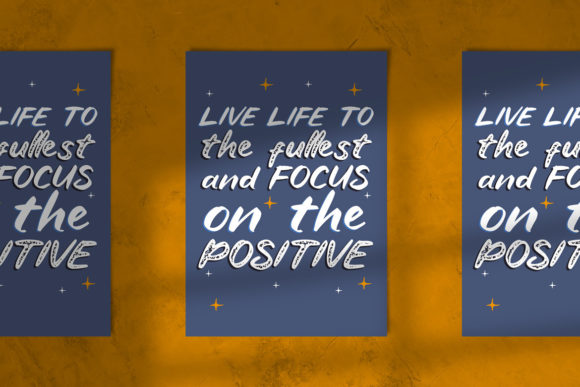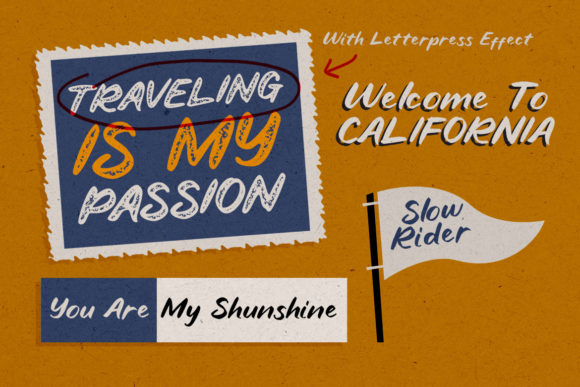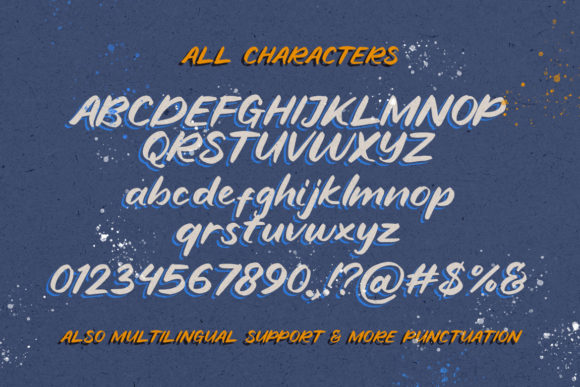
Introduction to Roaster Black Font
Roaster Black is a unique display font that includes a rough, and stamp version.
It will complement any design that needs a perfectly balanced mix of smooth and sharp .
Key Features of Roaster Black Font